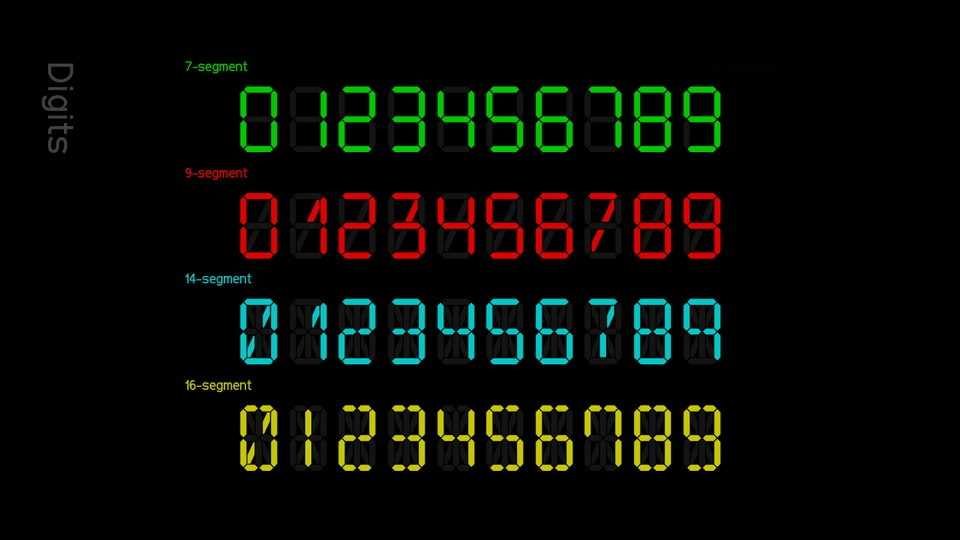
Download Digit Tech font, a display typeface that offers two styles, regular and italic, and a range of options including 7-, 9-, 14-, and 16-segment. Digit Tech fonts have a consistent grid size, allowing for seamless switching between them.